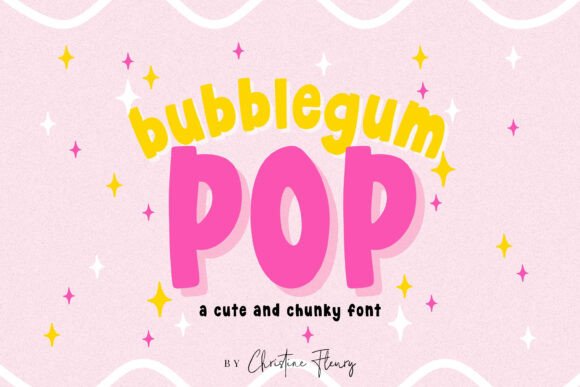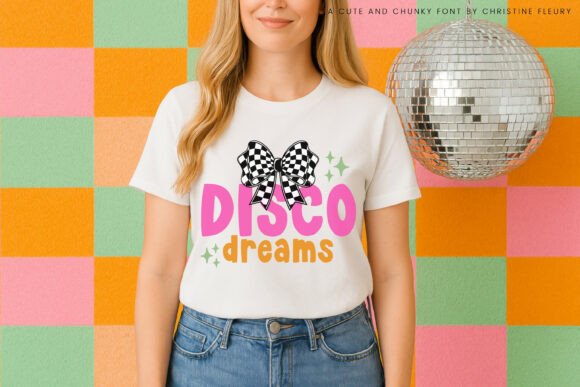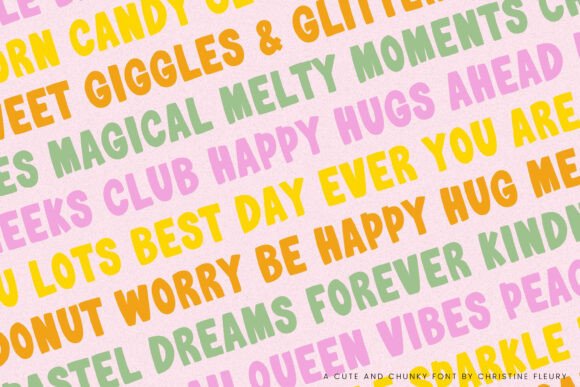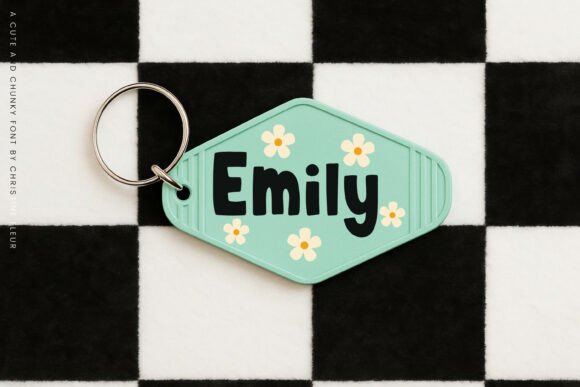
Bubblegum Pop Font: Chunky Retro Display Font for Cricut & Craft Projects!
About the Bubblegum Pop Font
Meet Bubblegum Pop Font, a stunning font that brings a touch of elegance and professionalism to any design. Get ready to add a burst of playful charm to your designs with Bubblegum Pop — a chunky, cute, and retro-inspired font made for good vibes only 💖. With its bubbly curves and hand-drawn style, this font is perfect for Crafters, Cricut users, Procreate lovers, and anyone looking to add a bold pop to their projects. Use it for Sublimation designs, SVGs, Stickers, Cards, Mugs, Logos, Wall Art, and so much more!
Bubblegum Pop’s playful, chunky style shines in headlines, short text blocks on packaging, and eye-catching logos. It’s ideal for projects targeting a young, fun-loving audience, such as children’s products, sweet treat brands, or playful social media content. Avoid using it for lengthy body text or UI elements; its retro charm can become overwhelming in larger quantities.
Pair Bubblegum Pop with a clean sans-serif like Open Sans for a balanced contrast, or a more geometric sans-serif for a modern twist. For a softer feel, a delicate script font can add an elegant counterpoint. Consider using a simple serif font for supporting text to ground the design.
The font’s overall personality is undeniably bold and friendly, yet retains a retro sweetness. This makes it suitable for brands aiming for a nostalgic yet contemporary image.
Bubblegum Pop Font Usage Examples